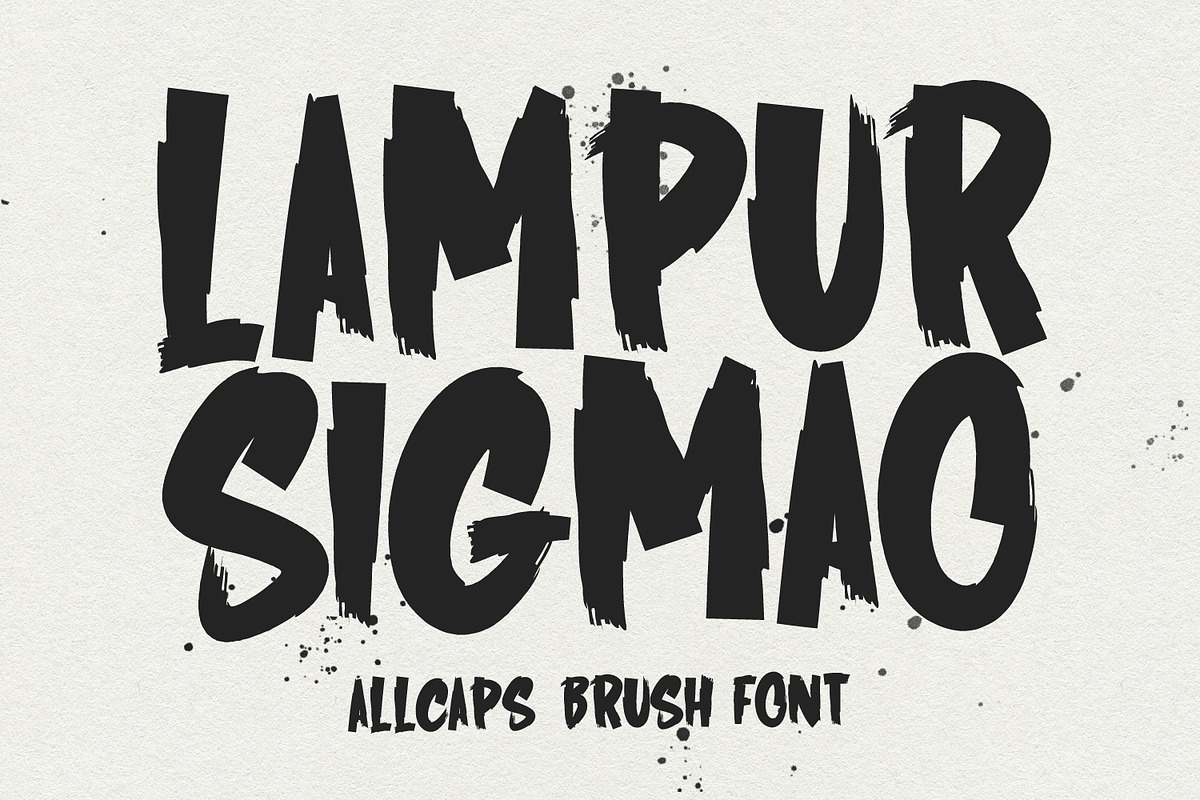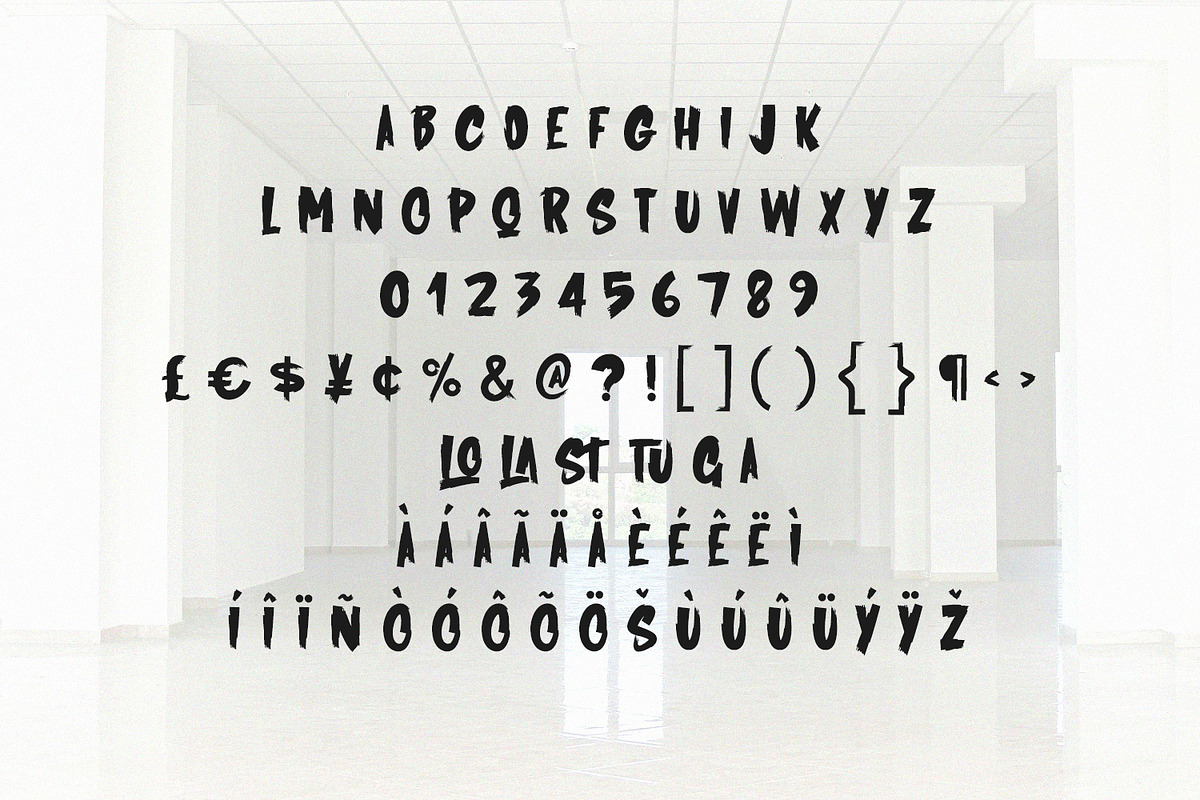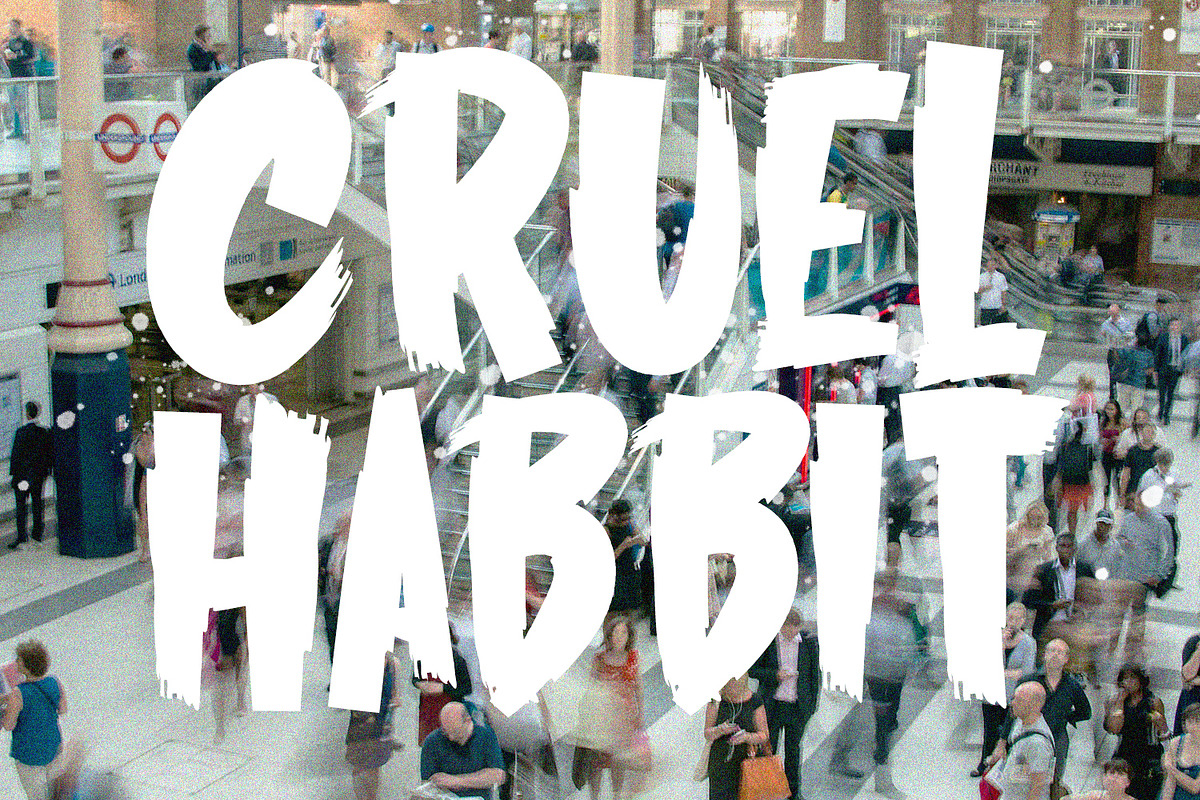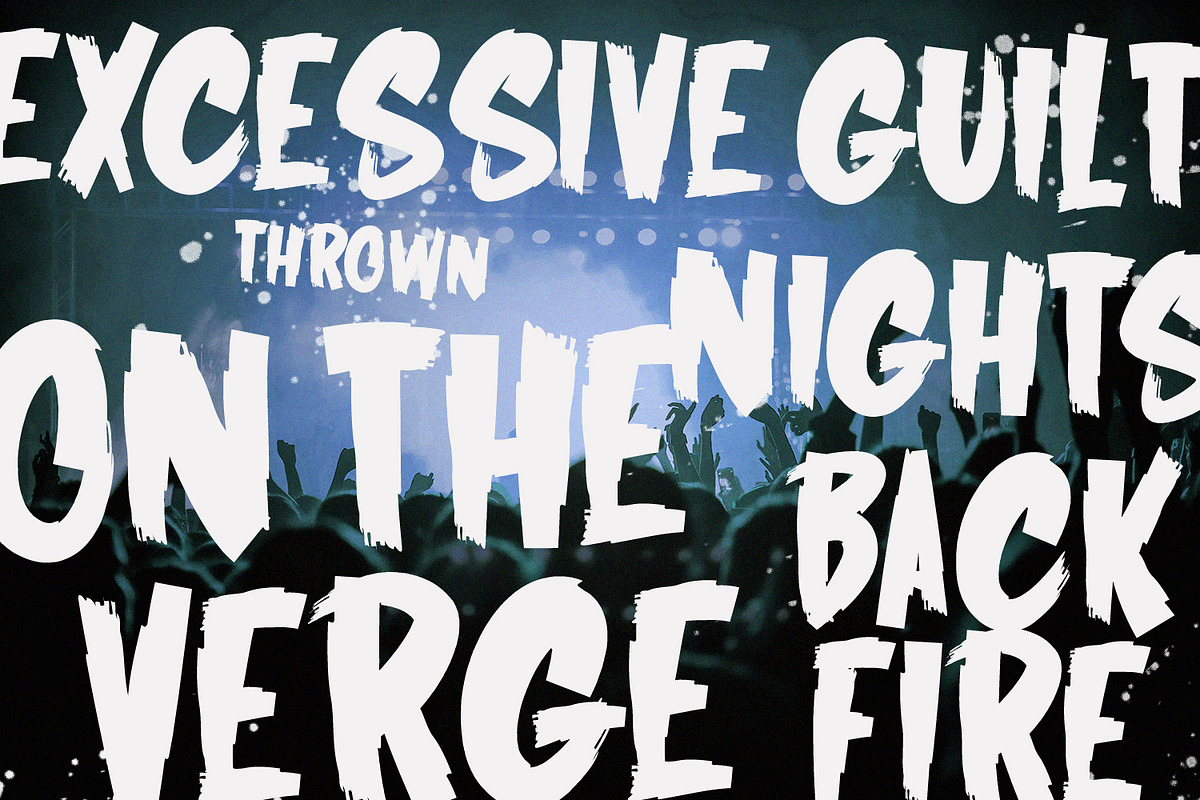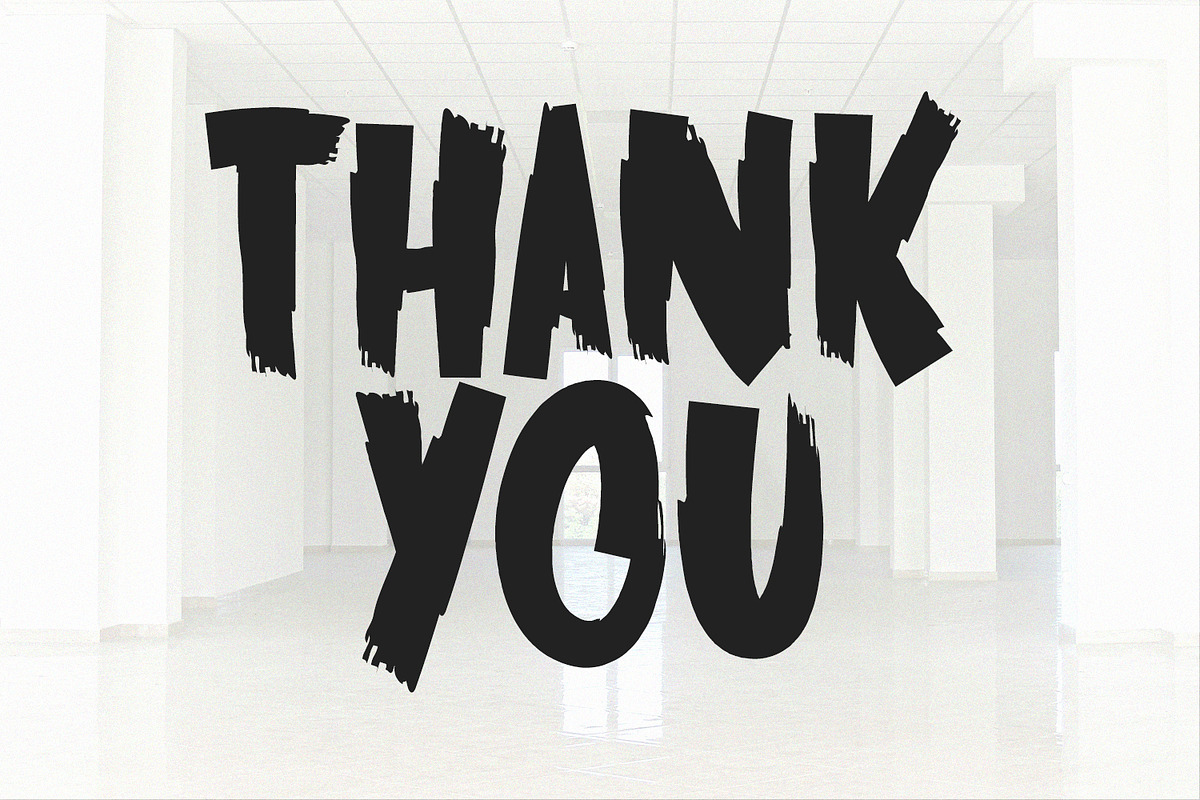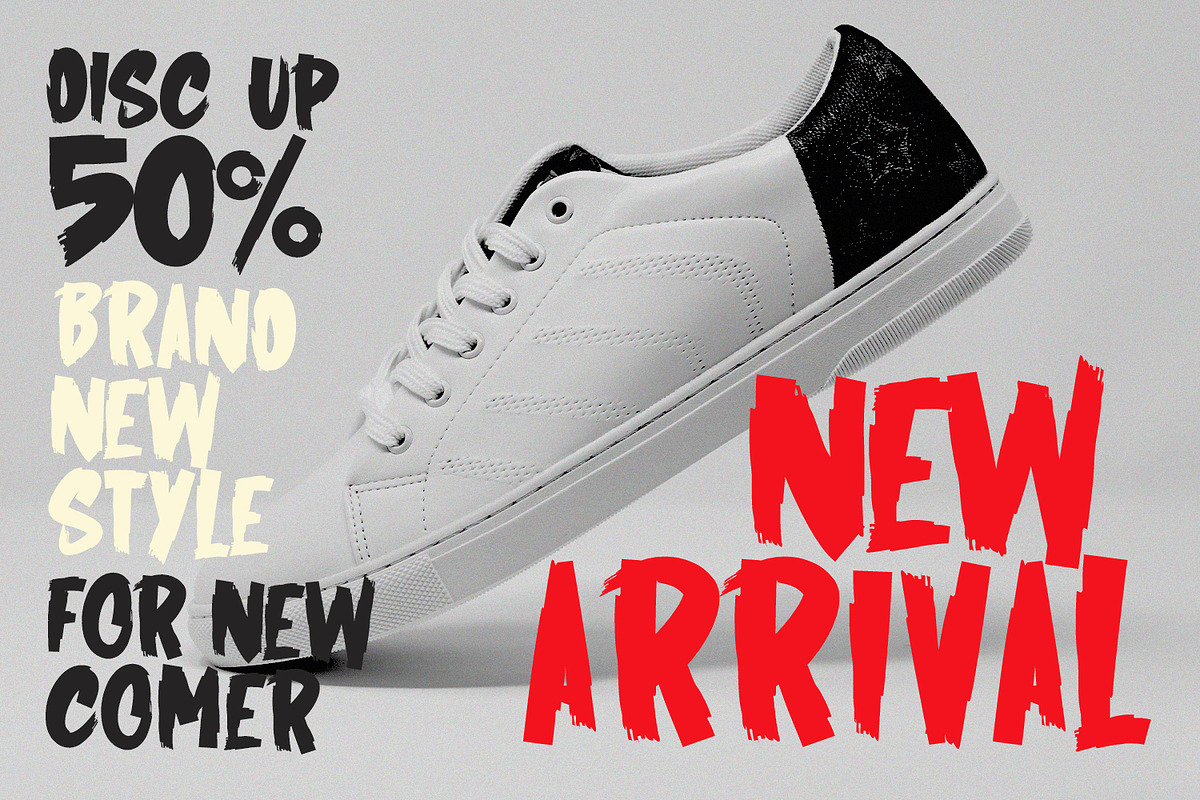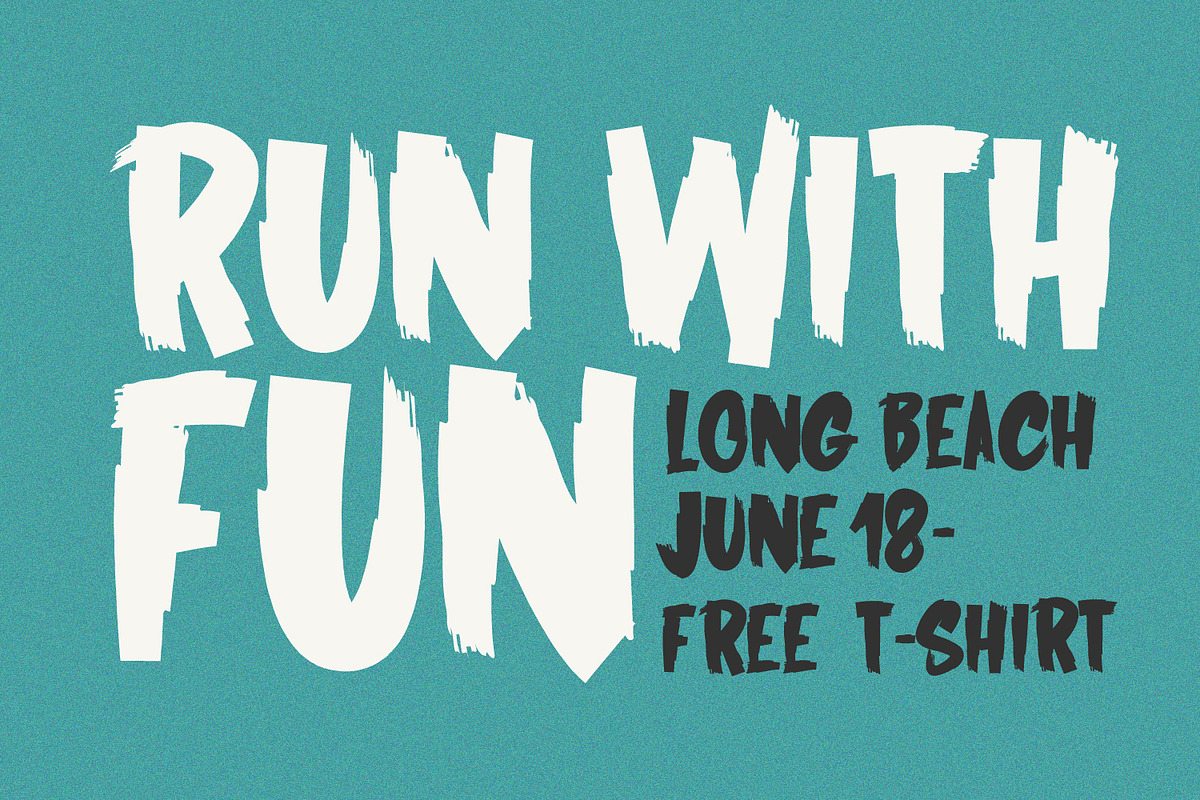
Lampur Sigmao Brush Caps Font
Lampur Sigmao handmade brush display font, fun character with alternates and ligatures. To give you an extra creative work. Lampur Sigmao handmade brush display font support multilingual language.